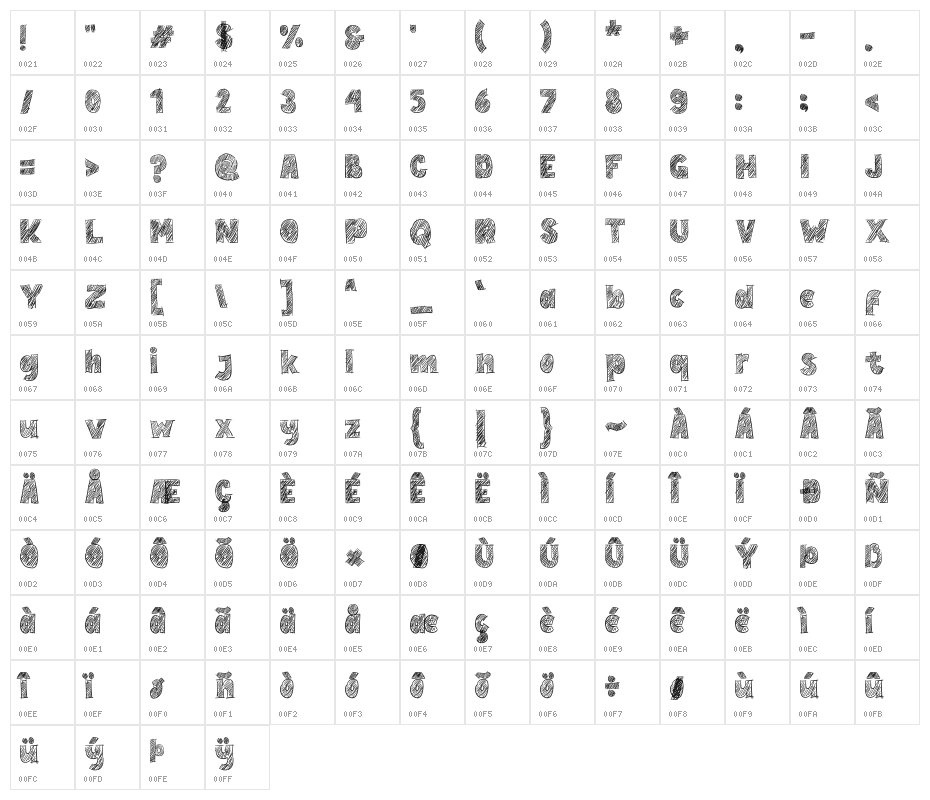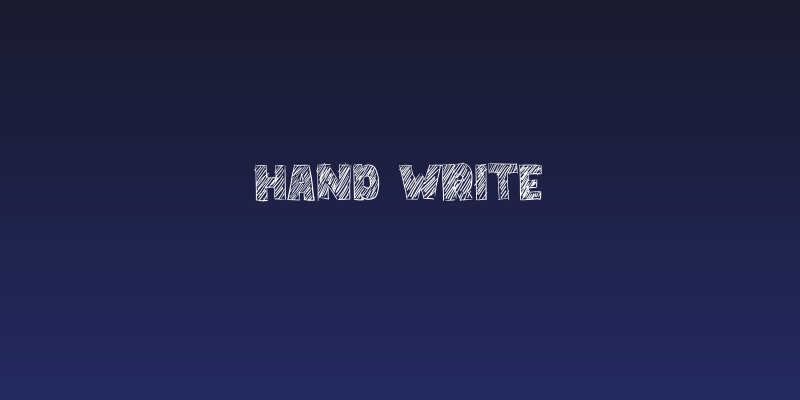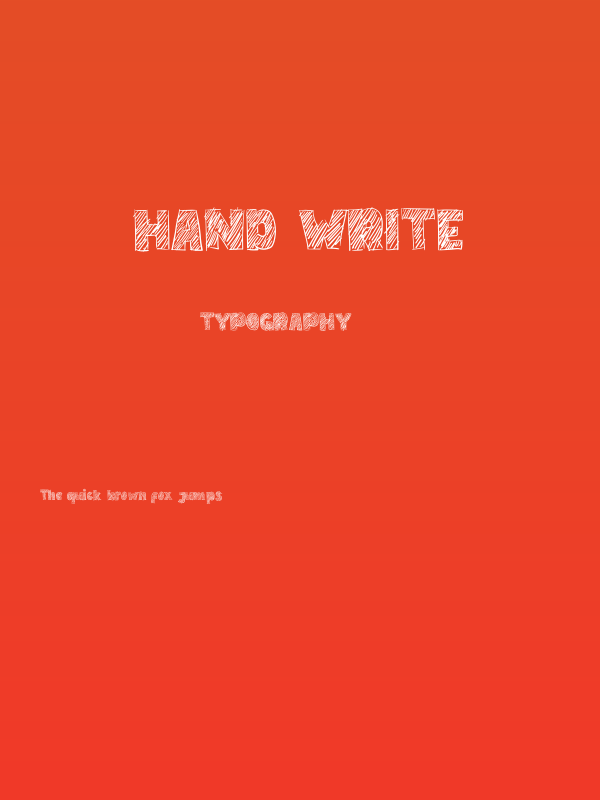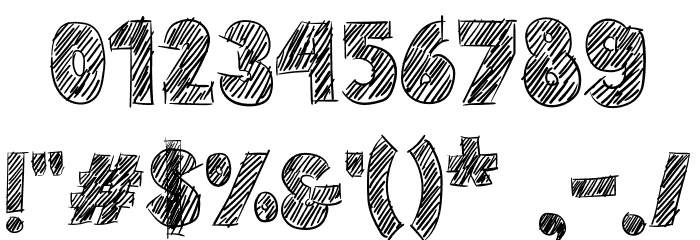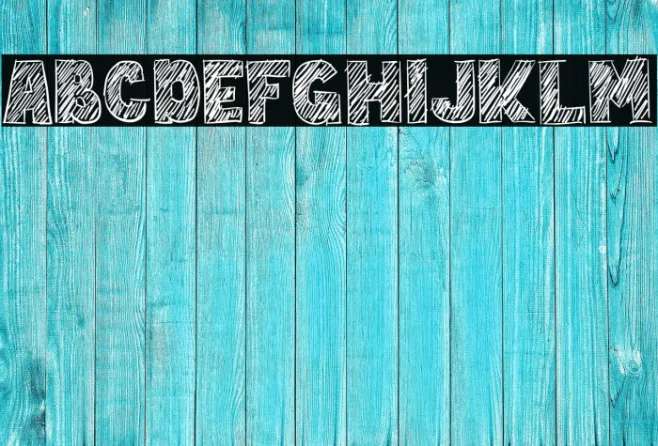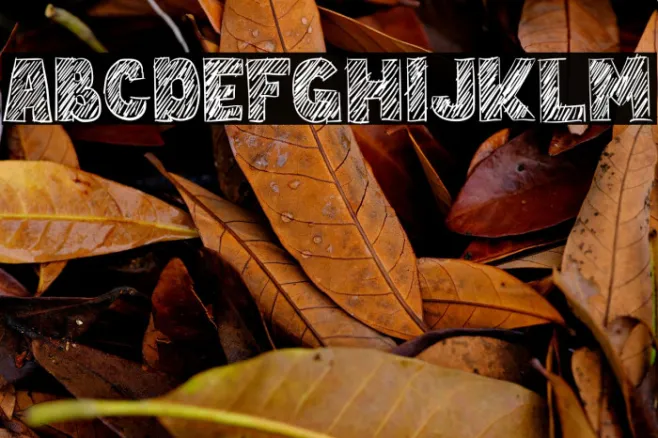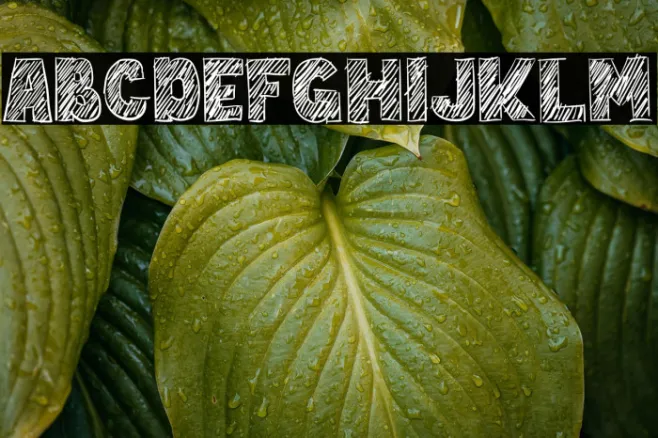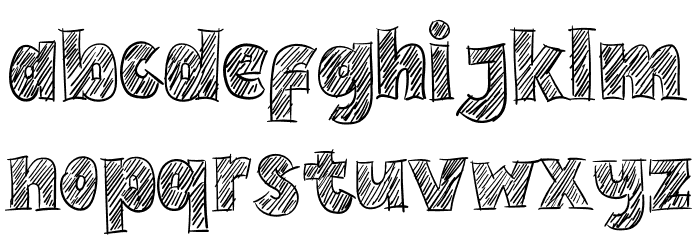
Hand Write Font
Hand Write Description
This font features a playful, hand-drawn style with a sketch-like appearance. Each character is filled with diagonal lines, giving it a textured, shaded look. The letters are bold and slightly irregular, adding to the casual, artistic feel. The uppercase and lowercase letters maintain a consistent style, with rounded edges and a whimsical flair. Numbers and special characters follow the same design, ensuring a cohesive look across all elements. This font is perfect for projects that require a fun, informal touch, such as children's books, creative posters, or playful branding.
| Proposed Projects | Ideal for children's books, creative posters, playful branding, and artistic designs. |